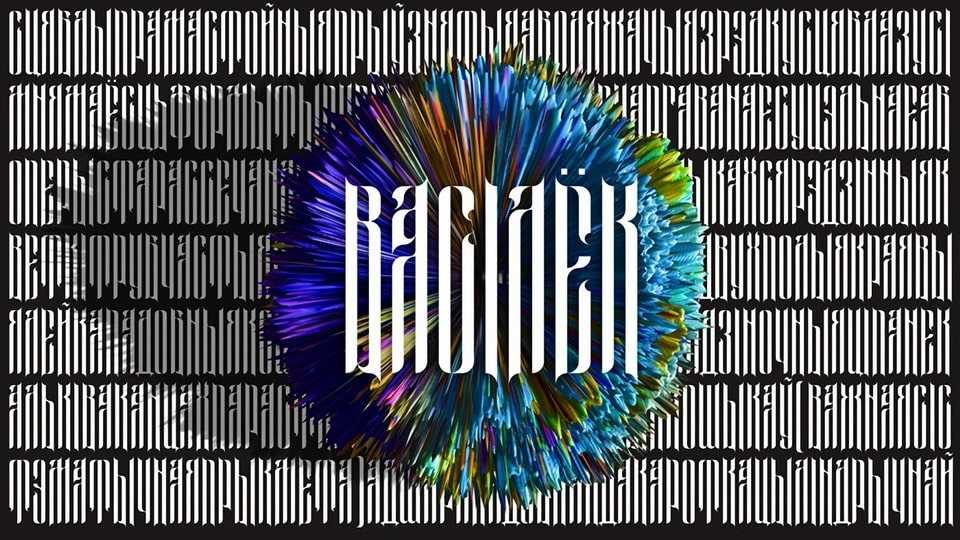
Vasilek Font › Fontesk
Download Vasilek font, a decorative monospaced condensed display typeface made on the basis of Cyrillic ligature. Vasilek font can be combined with pixel art and handwritten lines.